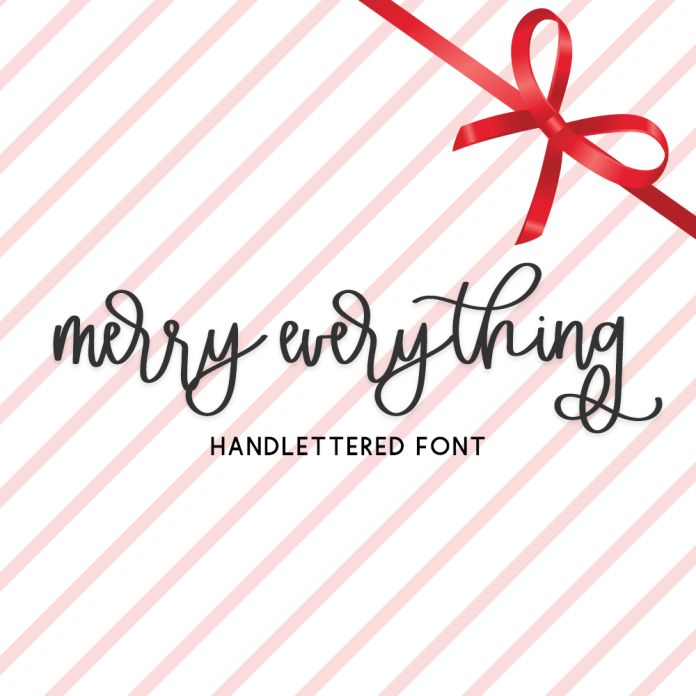
Introducing Merry Everything Script, a cute & bouncy handlettered modern calligraphy script. Merry Everything Script features 20 alternates & 28 ligatures to enhance the handwritten look & feel of your project.
Merry Everything Script is best for:
- feminine, crafty projects with your Cricut or Silhouette machine, or your SVG design business
- Christmas or other holiday themed items like greeting cards or gift tags
Merry Everything Script includes:
- 20 alternates
- 28 ligatures - ar, ax, bb, cc, co, cr, dd, ee, er, ff, fl, fr, gr, ir, ll, lk, mm, nn, oo , or, pp, rr, rr, ss, th, tr, tt, ur